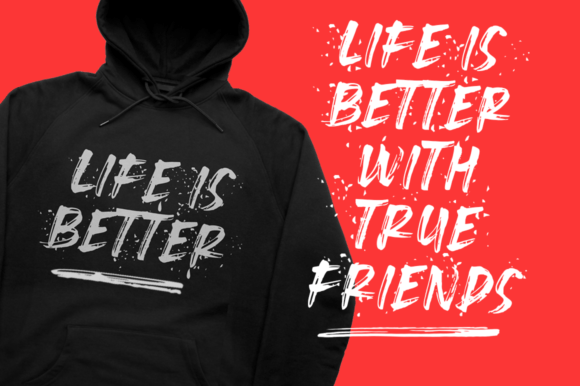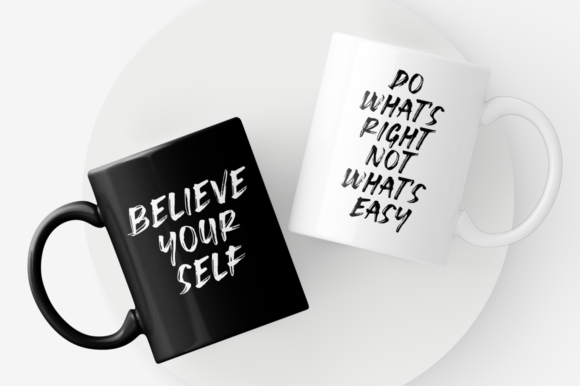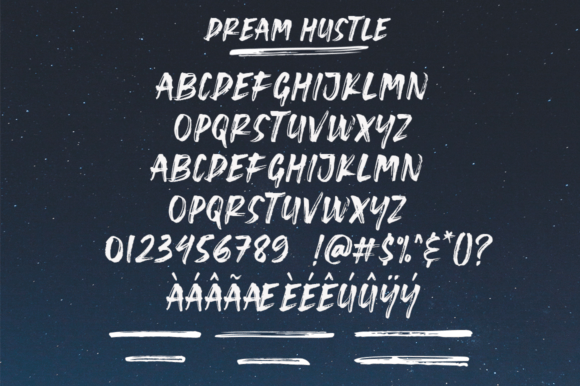
Dream Hustle Font: Unleash Your Creativity with this Hand Brush Font
Are you a designer or crafter looking for a font that can add a touch of originality and creativity to your designs? Look no further than the Dream Hustle Font. This hand brush font is the perfect choice for those who want to make a statement with their design branding. In this article, we’ll dive into the features and benefits of the Dream Hustle Font and explore how it can elevate your design game.
What is Dream Hustle Font?
Dream Hustle Font is a hand brush font that is the result of sketches with a brushed texture. This display font is designed to bring a sense of creativity and originality to your designs. With its unique and dominant style, it’s perfect for design branding that needs to stand out from the crowd.
Features of Dream Hustle Font
- Hand Brush Texture: The Dream Hustle Font features a hand brush texture that gives it a unique and organic feel. This texture adds a touch of warmth and personality to your designs.
- Display Font: This font is designed as a display font, making it perfect for headlines, titles, and other design elements that need to make a statement.
- Creative and Original: The Dream Hustle Font is designed to bring a sense of creativity and originality to your designs. Its unique style ensures that your designs will stand out from the crowd.
- Dominant Design Branding: This font is perfect for design branding that needs to be dominant and attention-grabbing. It’s ideal for logos, business cards, and other marketing materials.
Benefits of Using Dream Hustle Font
So, why should you choose the Dream Hustle Font for your designs? Here are just a few benefits of using this amazing font:
- Adds Personality to Your Designs: The hand brush texture and unique style of the Dream Hustle Font add a touch of personality to your designs, making them more relatable and engaging.
- Perfect for Creative Projects: This font is ideal for creative projects that require a unique and original touch. It’s perfect for designers, crafters, and artists who want to add a personal touch to their work.
- Easy to Read: Despite its creative and artistic style, the Dream Hustle Font is easy to read and understand. This makes it perfect for designs that need to communicate a message effectively.
- Versatile: The Dream Hustle Font can be used in a variety of design projects, from logos and business cards to posters and social media graphics.
- Pair it with Other Fonts: The Dream Hustle Font can be paired with other fonts to create a unique and visually appealing design. Try pairing it with a sans-serif font for a modern look.
- Use it for Headlines: This font is perfect for headlines and titles. Use it to add a touch of creativity and originality to your design.
- Experiment with Colors: The Dream Hustle Font looks great in a variety of colors. Experiment with different colors to find the one that works best for your design.
The Dream Hustle Font is a hand brush font that is perfect for designers and crafters who want to add a touch of creativity and originality to their designs. With its unique style and dominant design branding, it’s ideal for logos, business cards, and other marketing materials. Whether you’re working on a creative project or just want to add a personal touch to your design, the Dream Hustle Font is a great choice.